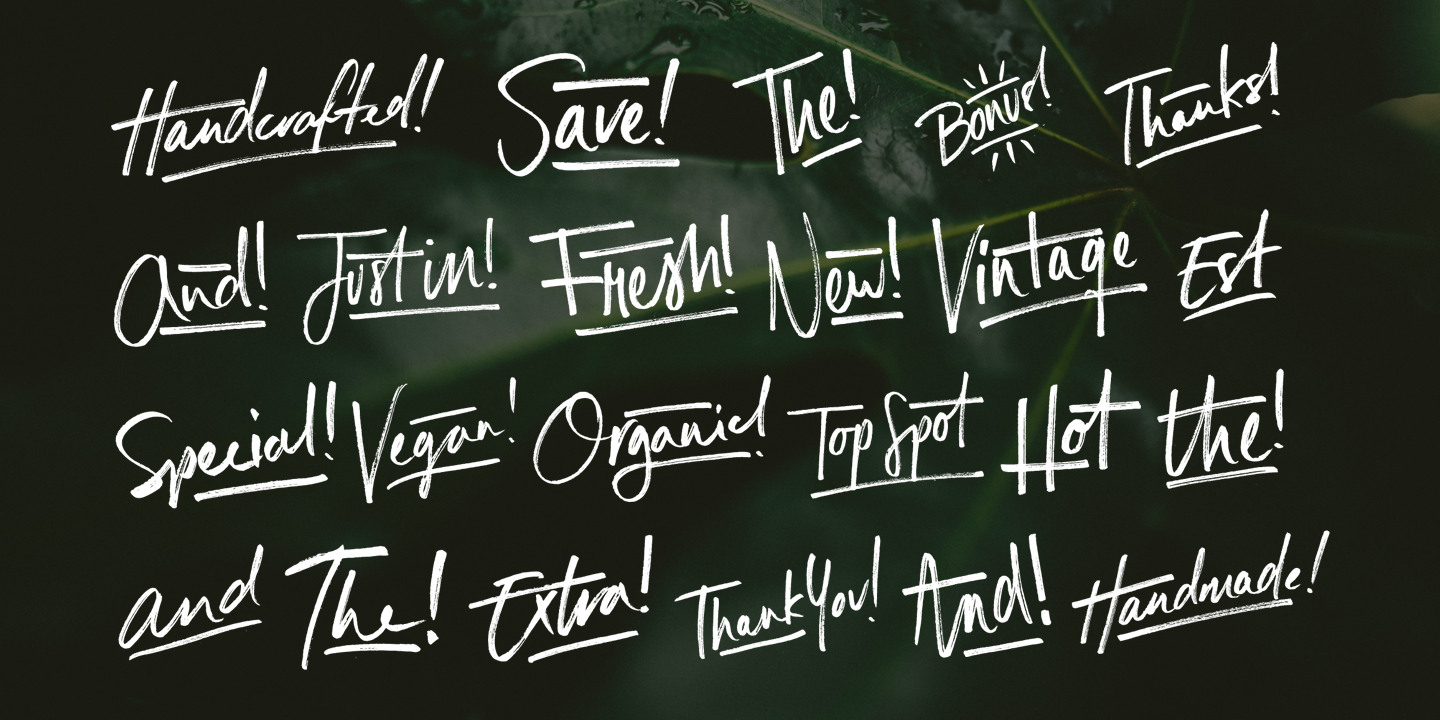
Russell Brush Font is an excellent choice for projects that aim for a dynamic, artistic, and handcrafted aesthetic with a vibrant energy. It's perfectly suited for expressive branding, event posters for creative gatherings, album art, social media graphics that pop, and apparel design. Its spontaneous strokes and natural texture make it ideal for conveying authenticity and a bold artistic statement.
What makes Russell Brush Font so exciting is its ability to immediately infuse designs with a powerful, handmade feel. It often features varied brush strokes, organic imperfections, and a lively flow that mimics genuine hand-painted lettering. This font doesn't just display text; it creates a piece of art, adding a raw, energetic, and uniquely human touch to any message, perfect for brands that want to communicate creativity and individuality.
The Russell Brush Font family typically offers variations to enhance its versatility and expressive range. You'll often find Russell Brush Regular as the primary style, with potential bold or alternate character sets that provide more options for customizability and a truly unique look. These elements ensure you can maintain a consistent, dynamic theme across diverse design applications. For those ready to explore its vibrant qualities, Russell Brush Font Free Download offers a fantastic opportunity to see its capabilities firsthand.